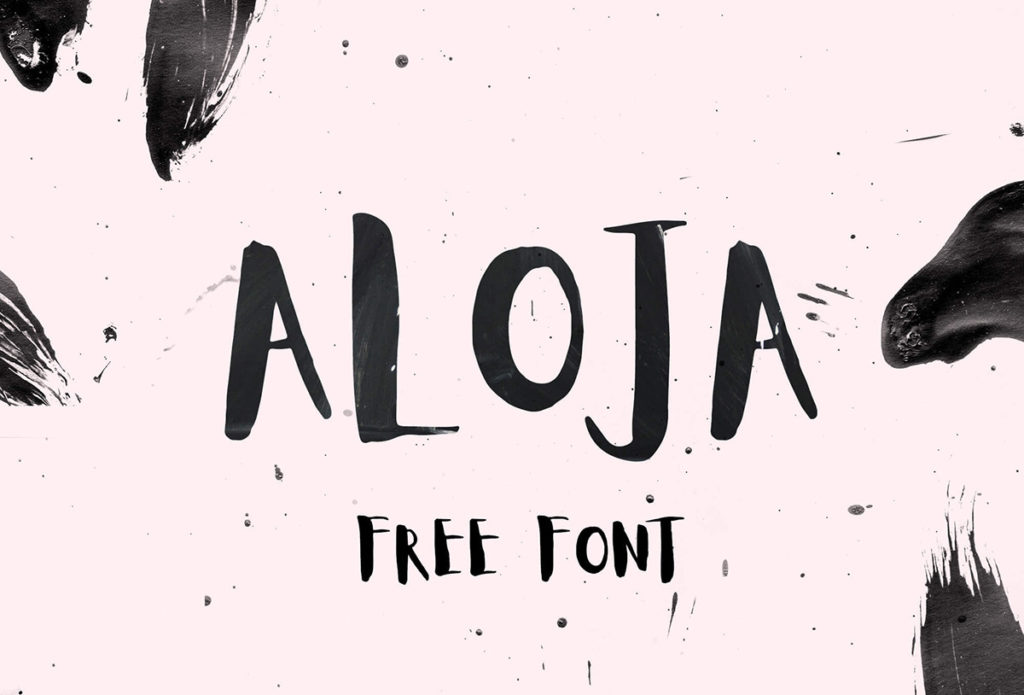
Aloja Free Handwriting Font
Aloja is a font that was designed for special usage – Big titles, events, posters, invitations. Is is easy to read and features a fresh and easy feel.
Every single letter is hand drawn with a thin brush on acrylic paper, this making the typeface visually unique.
Aloja handwriting font was drawn by Ieva Mezule and put together by Krisjanis Mezulis.
Aloja Free Handwriting Font